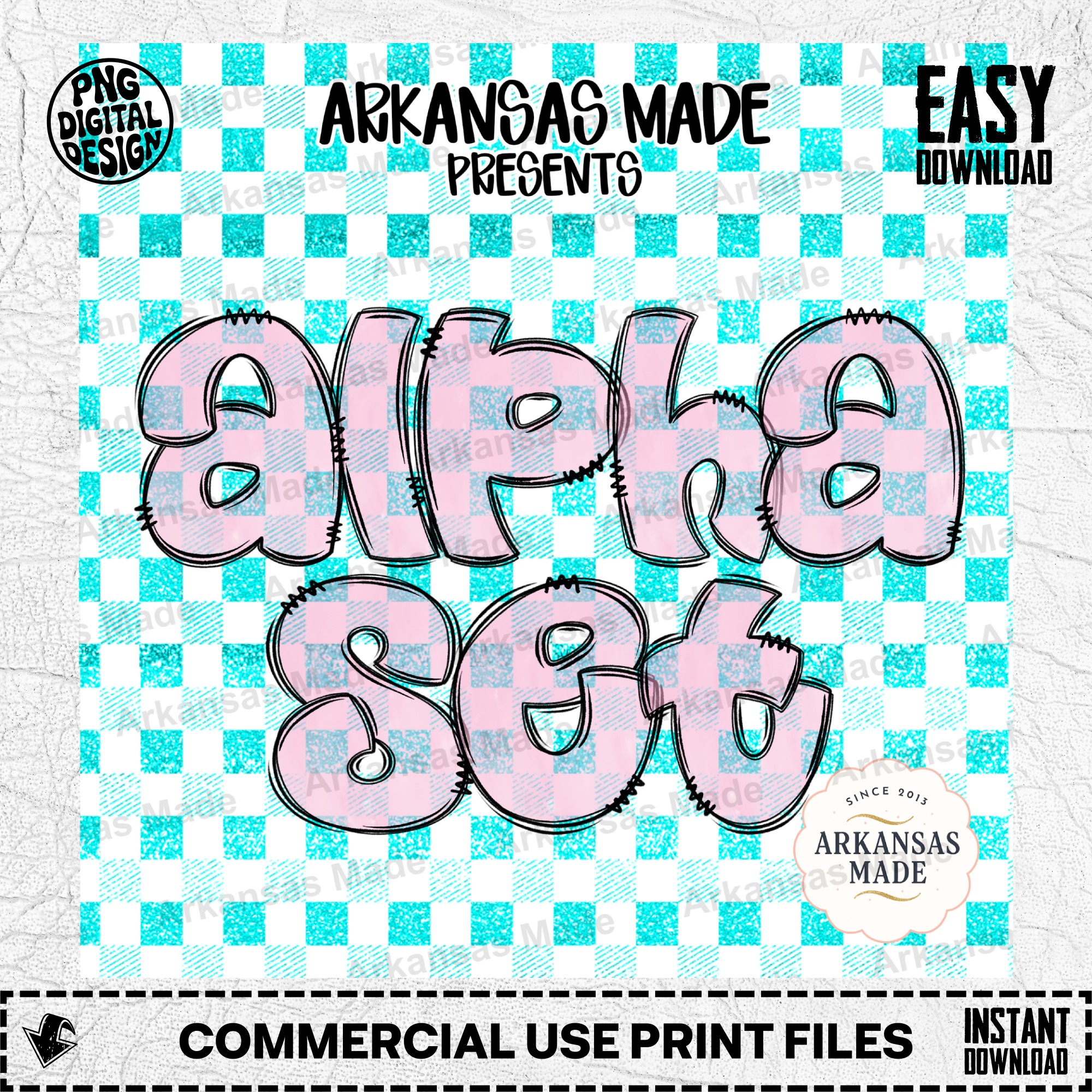
Pink Plaid Bubble Letter Alpha Set PNG, Buffalo Plaid Digital Alphabet for Sublimation & Crafts, Cute Letters Font Bundle
Get this adorable Pink Plaid Bubble Letter Alpha Set PNG for your creative projects! Perfect for sublimation designs and digital crafts. This cute alphabet brings a playful, rustic charm to personalized items, from custom apparel and mugs to unique home decor. Ideal for crafters, DIYers, and small business owners looking to create special gifts or personalized merchandise.